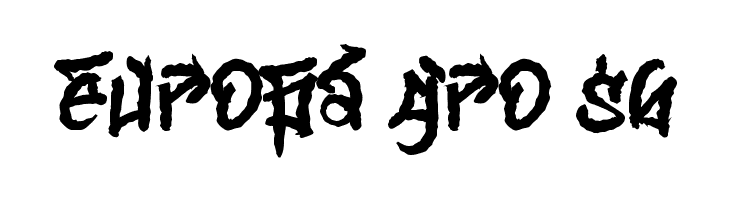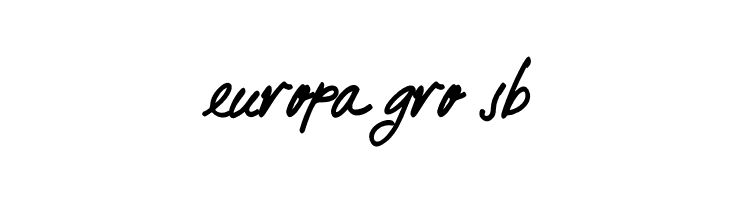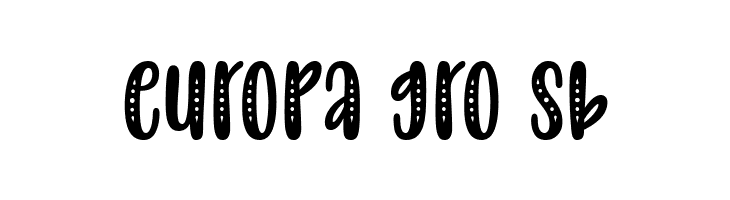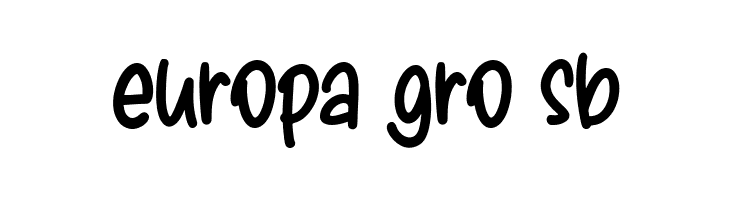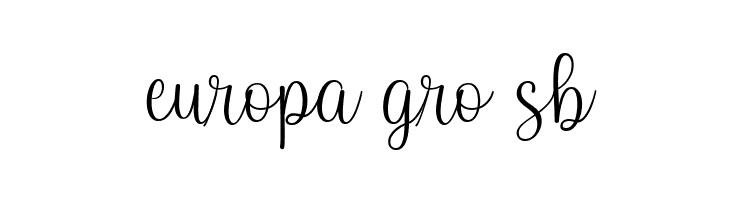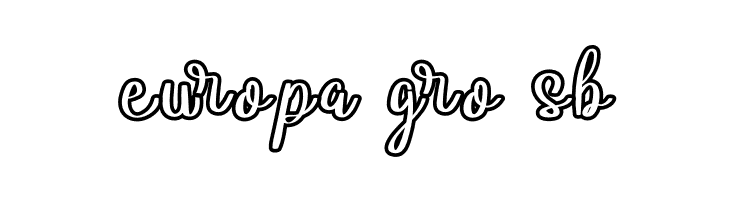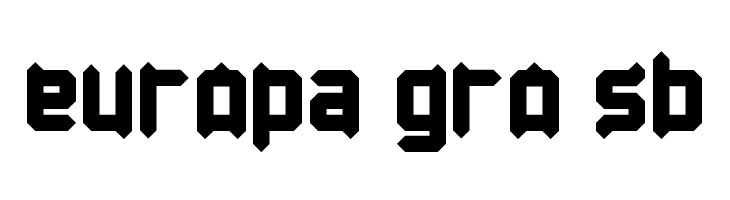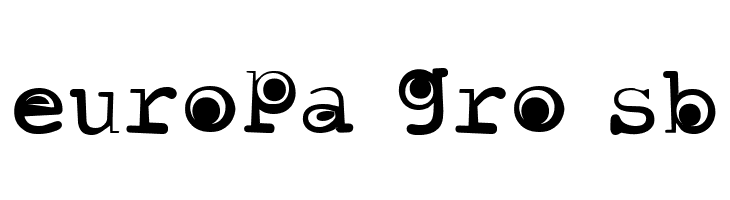
A playful, handwritten marker-style font with rounded, bold characters.
A playful, handwritten font with bold, rounded characters and a whimsical style.
A bold, geometric font with sharp angles and a blocky design.
A lively handwritten script font with fluid, connected strokes.
A playful, outlined script font with a hand-drawn, whimsical style.
A bold, playful serif font with rounded serifs and whimsical design elements.
A playful, handwritten-style font with smooth, flowing curves.
A playful, bold font with dotted patterns inside rounded characters.
A bold, Gothic-inspired font with sharp, angular lines and a hand-drawn appearance.
A bold, hand-drawn font with jagged edges and a distressed, energetic style.